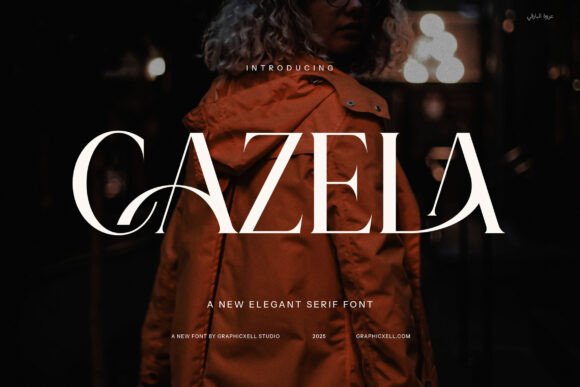
Discover the Elegance of Cazela Font: Elevate Your Designs with Timeless Sophistication
In the world of typography, few fonts manage to strike a balance between modernity and sophistication as effortlessly as Cazela. This exquisite typeface is designed to bring a touch of refined charm to your creative projects, making it an ideal choice for designers and crafters looking to elevate their work. With its delicate serifs, smooth curves, and meticulously crafted details, Cazela embodies a versatile elegance that seamlessly merges style with functionality.
The Standout Features of Cazela Font
One of the most distinctive aspects of Cazela is its unique ligatures and alternates. These thoughtful additions provide endless opportunities for personalization and creative expression, allowing designers to add a bespoke touch to their work. Whether you’re crafting a logo, developing a brand identity, or simply looking to add a dash of sophistication to your designs, Cazela’s features ensure your project stands out with an air of luxury and professionalism.
Cazela in Logo and Branding Design
When it comes to logos and branding, the choice of font can make all the difference. Cazela shines in this arena, conveying a sense of high-end quality and refinement that is perfect for businesses, boutiques, and premium products aiming to project an image of elegance and sophistication. Its clean yet intricate design strikes the perfect balance, ensuring that your brand not only captures attention but also communicates a sense of luxury and exclusivity.
Why Choose Cazela for Your Projects?
- Versatility: Cazela’s design is versatile enough to be used across various platforms and project types, from digital interfaces to print materials.
- Elegance: Its refined charm and sophisticated look make it perfect for projects where an upscale feel is desired.
- Customization: The unique ligatures and alternates offer a high degree of customization, allowing for truly unique designs.
- Legibility: Despite its intricate details, Cazela maintains excellent legibility, making it suitable for both headlines and body text.
Tips for Using Cazela Effectively in Your Designs
To make the most of Cazela, consider the following tips:
- Mix and Match: Experiment with Cazela’s ligatures and alternates to create a unique look that complements your project’s theme.
- Pair Thoughtfully: When pairing Cazela with other fonts, choose typefaces that complement its elegance and sophistication, ensuring a harmonious design.
- Consider Context: Think about the context in which Cazela will be used. Its features are particularly effective in titles, headers, and short texts where visual impact is key.
Cazela is more than just a font; it’s a design statement. Its blend of modernity and sophistication, coupled with its versatile and elegant design, makes it an invaluable tool for designers and crafters aiming to elevate their projects. Whether you’re working on a high-end brand identity, a boutique’s logo, or any project that demands a touch of luxury and professionalism, Cazela is poised to enhance your creative expression. Discover the potential of Cazela and bring a new level of refinement and charm to your designs.
With Cazela, the possibilities are endless. Embrace its timeless elegance and let it be the cornerstone of your next design project. Experience firsthand how this exquisite typeface can transform your work, making it not just visually appealing but also a testament to your impeccable taste and professionalism.